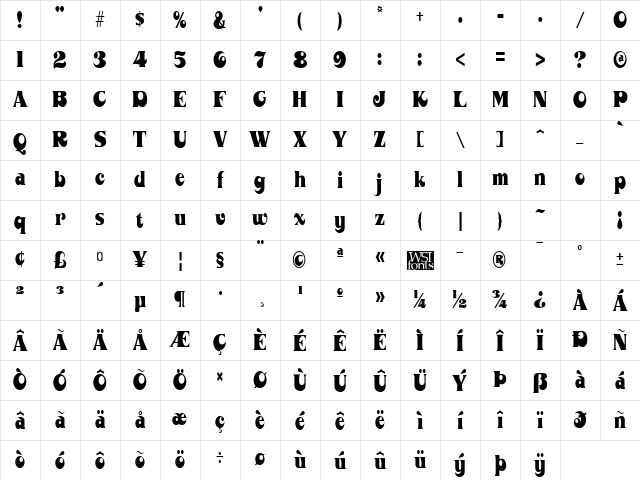
Mahaney normal
Style: normal
Mahaney Family
Design Context for Mahaney
Mahaney is a composed and adaptable typeface that performs quietly and consistently across a wide range of design contexts.